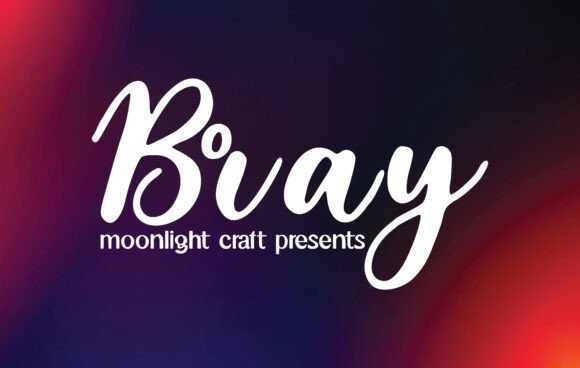
The Bray Font: A Beautiful Handwritten Font to Elevate Your Designs
I’ll never forget the time I was working on a branding project for a new coffee shop. I had a clear vision of what I wanted to create, but somehow, the fonts I was using just weren’t doing justice to the design. The letters looked stiff, and the overall feel was off. That’s when I stumbled upon the Bray font. It was like a breath of fresh air! The elegant, flowing lines and beautiful handwritten style instantly elevated my design. If you’re a designer, crafter, or creative hobbyist looking for a font that can take your creative ideas to the next level, you’re in the right place.
A Personal Review of Bray Font
I’ve had the pleasure of working with the Bray font on several projects, and here’s what I think:
- ✨ Beautifully crafted letters: Each letter is carefully designed to be unique and visually appealing.
- ✅ Elegant and sophisticated: The font has a luxurious feel that’s perfect for high-end branding and designs.
- ✅ Versatile: Bray font can be used for a wide range of projects, from logos and branding to quotes and social media graphics.
However, no font is perfect, and Bray has a few quirks:
- ⚠️ Limited use in small sizes: The font can get a bit blurry when used in small sizes, so it’s best to use it in larger sizes or for headlines.
- 🤔 Some letters may require manual kerning: Depending on the word or phrase, you might need to adjust the kerning to get the perfect spacing.
The Story Behind Bray Font
The Bray font was designed by a talented typographer who wanted to create a beautiful, handwritten font that would inspire creativity and elegance. The designer drew inspiration from classic calligraphy and modern handwriting styles to craft a unique and versatile font. Today, Bray font is used by designers and crafters around the world to create stunning designs that stand out.
| What is the best use for Bray font? | Bray font is perfect for creating eye-catching logos, branding, and quotes. Its elegant and sophisticated style makes it ideal for high-end designs. |
| Is Bray font suitable for body text? | While Bray font is beautiful, it’s best used for headlines or short paragraphs. Its elegant style may not be suitable for long blocks of text. |